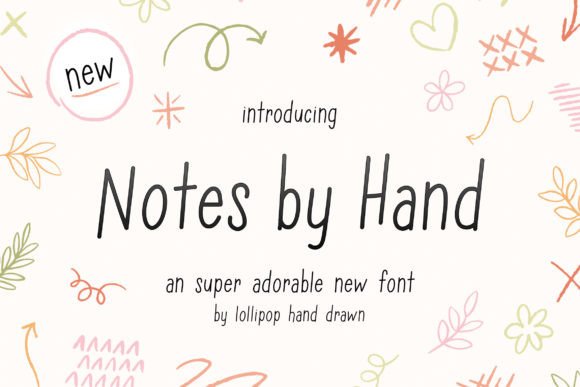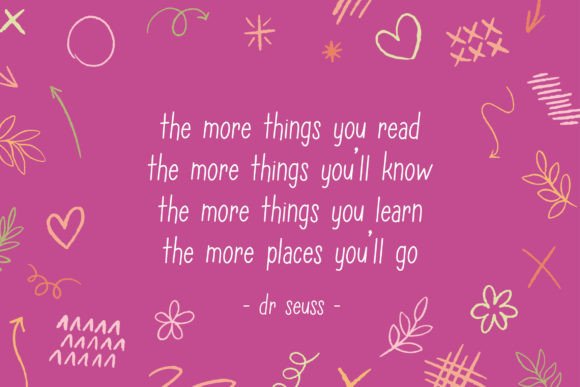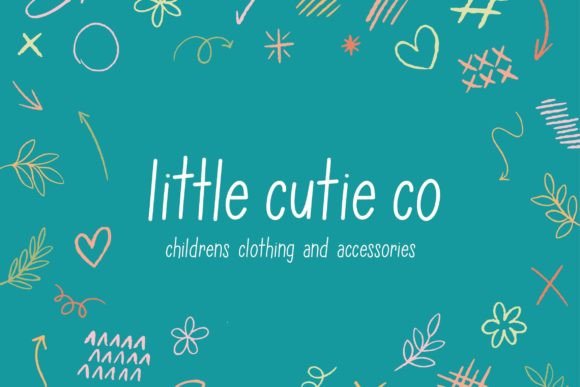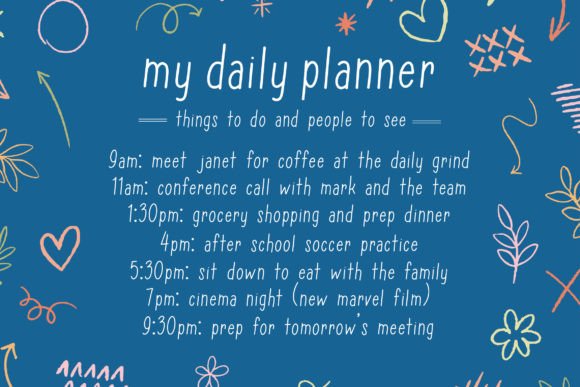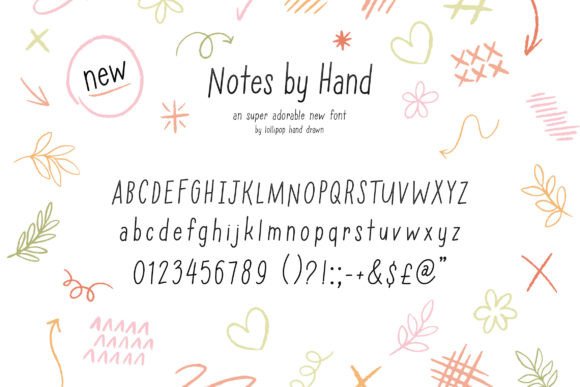
Notes by Hand Font
About Notes by Hand Font
Notes by Hand is a sweet and quirky handwritten font designed to add a playful yet charming touch to any creative project. Its unique style makes it a valuable addition to any font collection, providing versatility and personality that can elevate logos, branding, invitations, and more.
Charming Handwritten Style
The Notes by Hand font captures the essence of casual, handwritten notes with a touch of whimsy. Each letter feels personal and authentic, creating a warm, inviting look that helps your designs stand out. Whether you’re working on digital content or print materials, this font adds an approachable and friendly tone.
Versatile Usage for Various Projects
Notes by Hand font fits a wide range of creative applications. Use it for crafting eye-catching logos, fun social media posts, stylish invitations, or product packaging that needs a handcrafted feel. Its quirky and friendly style also works beautifully for greeting cards, posters, and personalized stationery, making it a perfect choice for designers seeking a font that is both distinctive and versatile.
Elevate Your Designs with Personality
The playful curves and unique character shapes of Notes by Hand create a dynamic visual rhythm that enhances any project. This font invites creativity and allows you to inject personality into your work, whether you are designing for business, personal projects, or special events.
Why Choose Notes by Hand Font?
With its sweet and quirky style, Notes by Hand font brings both charm and uniqueness to your designs. It is especially useful for projects that require an authentic, handcrafted vibe without compromising on readability or professionalism. Adding this font to your toolkit means having a reliable choice that connects emotionally with your audience.
Accessible and Easy to Use
Notes by Hand is designed to be user-friendly. Its legibility and distinctive style make it suitable for both beginners and professional designers. This font helps you achieve creative and polished results without complicated setups, perfect for quick projects or detailed design work.
Make Your Projects Shine with Notes by Hand
Incorporate Notes by Hand into your designs to add a whimsical, personal touch that captures attention. Whether you’re creating for print or digital platforms, this font will help you make a memorable impression with its quirky elegance and friendly vibe. Try Notes by Hand today and watch your creative ideas come alive with personality and charm.